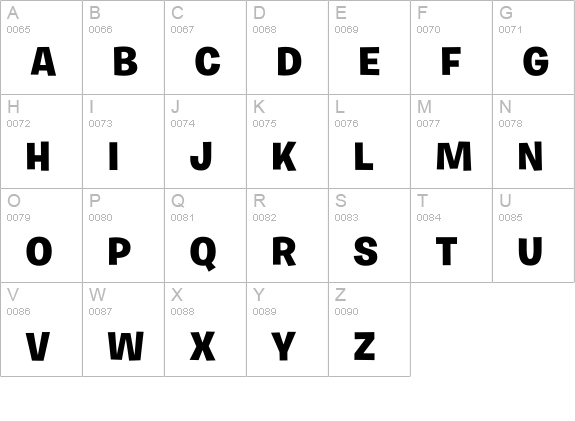
Burbank Small Black is a maximum-weight, dramatic variant in the Burbank typeface family \xE2\x80\x94 well suited to maximum-impact headlines, posters, and packaging.
Burbank Small Black is a sleek and modern font that exudes sophistication and elegance. With its clean lines and bold appearance, this font is perfect for making a statement in any design project. The compact size of the letters adds a touch of uniqueness and flair to your text. Best of all, Burbank Small Black is available for free download at FontsMarket.com. This means you can easily access this stylish font and incorporate it into your projects without any cost. Whether you're designing a logo, creating promotional materials, or crafting a website, Burbank Small Black is a versatile choice that will help your text stand out. Unlock the potential of your designs with this eye-catching and professional font, now freely available for download.